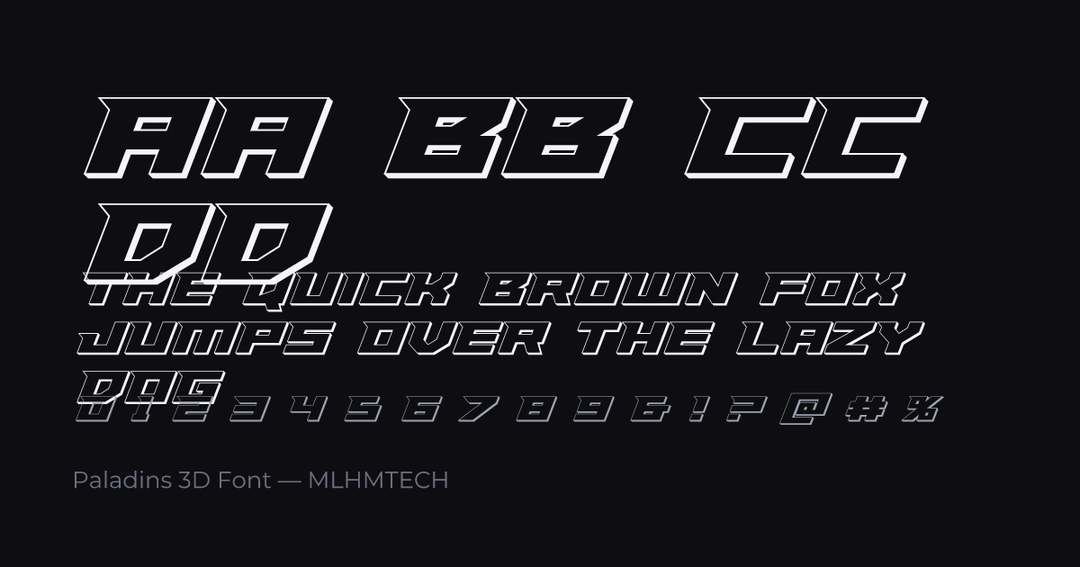
Paladins 3D Font
A bold, three-dimensional display font inspired by the Paladins game aesthetic, ideal for gaming titles, logos, and thumbnails.
Paladins 3D is a striking display font that brings a dimensional, chiseled look to your text. Its sharp edges and layered shading evoke the fantasy battle arenas of the popular game, making it perfect for esports branding, YouTube thumbnails, and streaming overlays.
Whether you're creating a team logo, a tournament poster, or a game-themed video intro, Paladins 3D adds a professional, high-energy feel. Pair it with a clean sans-serif for body text to keep your design balanced.